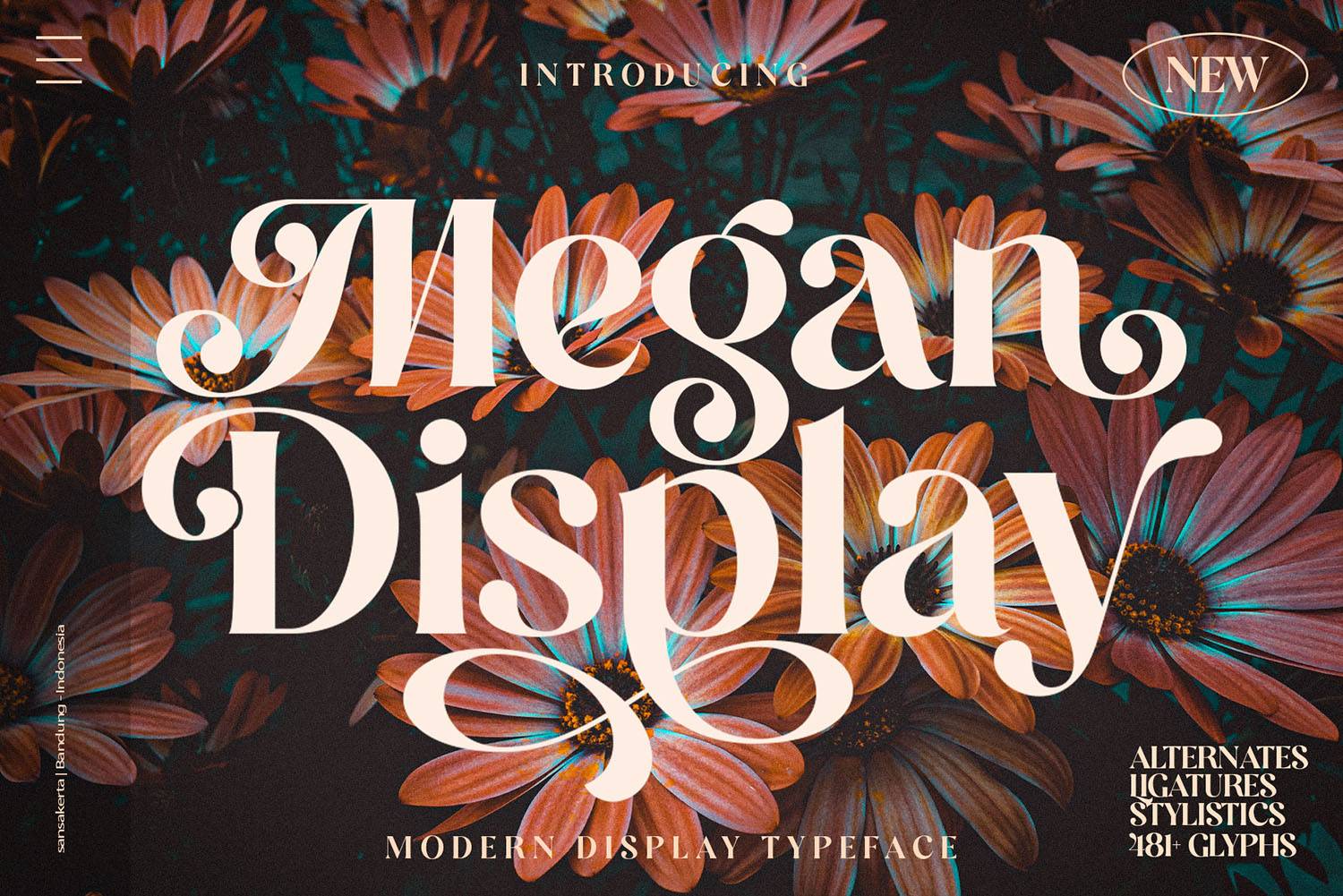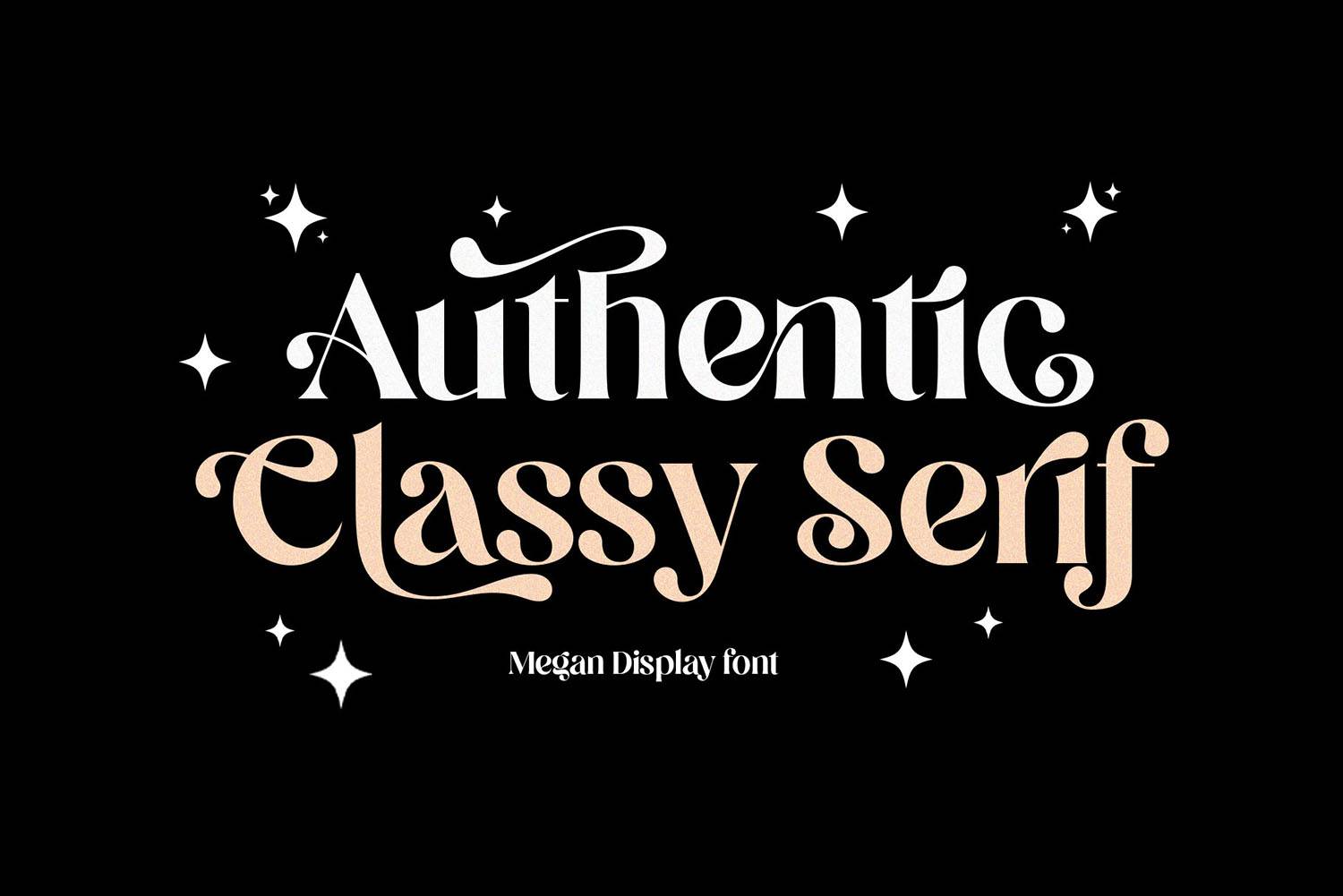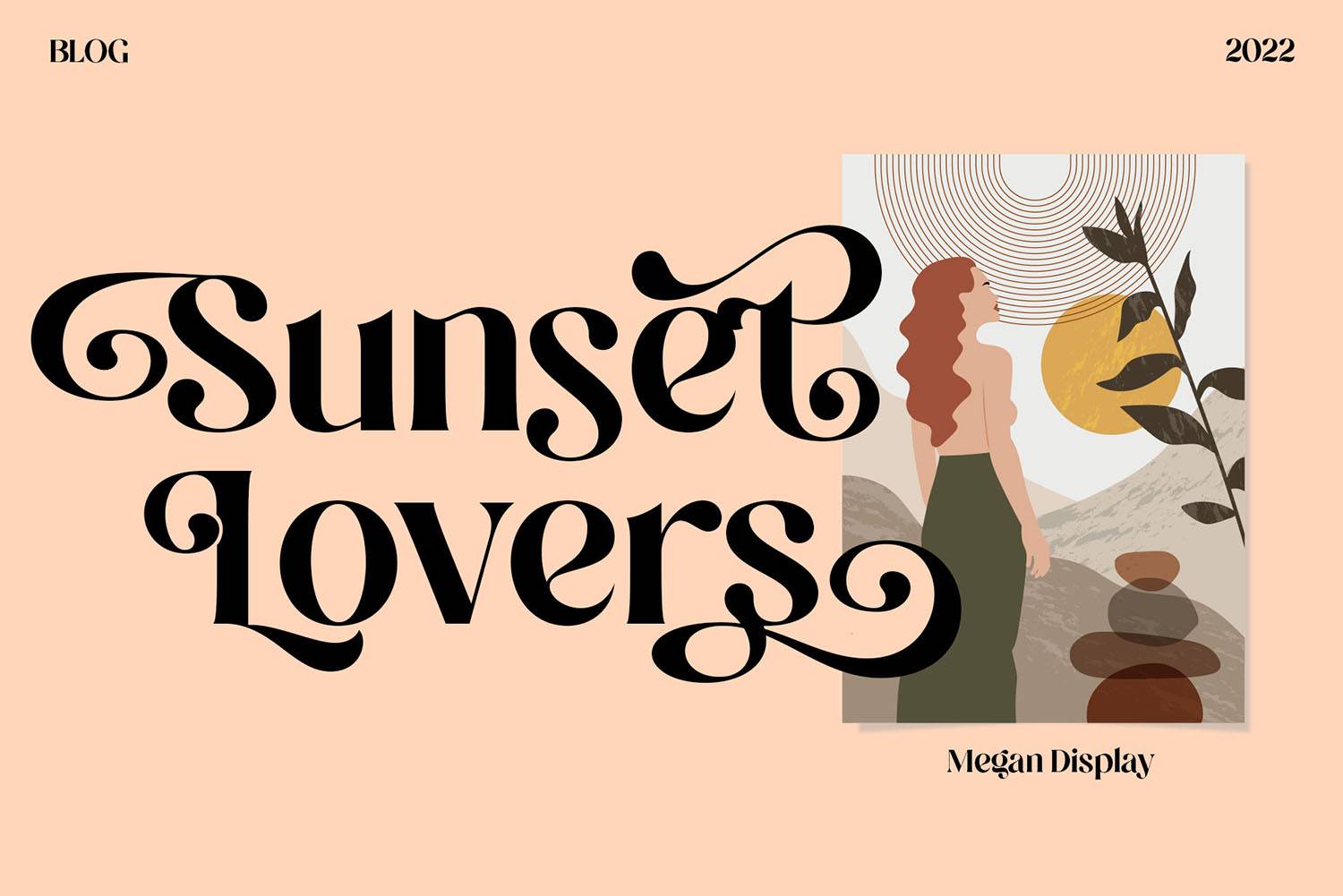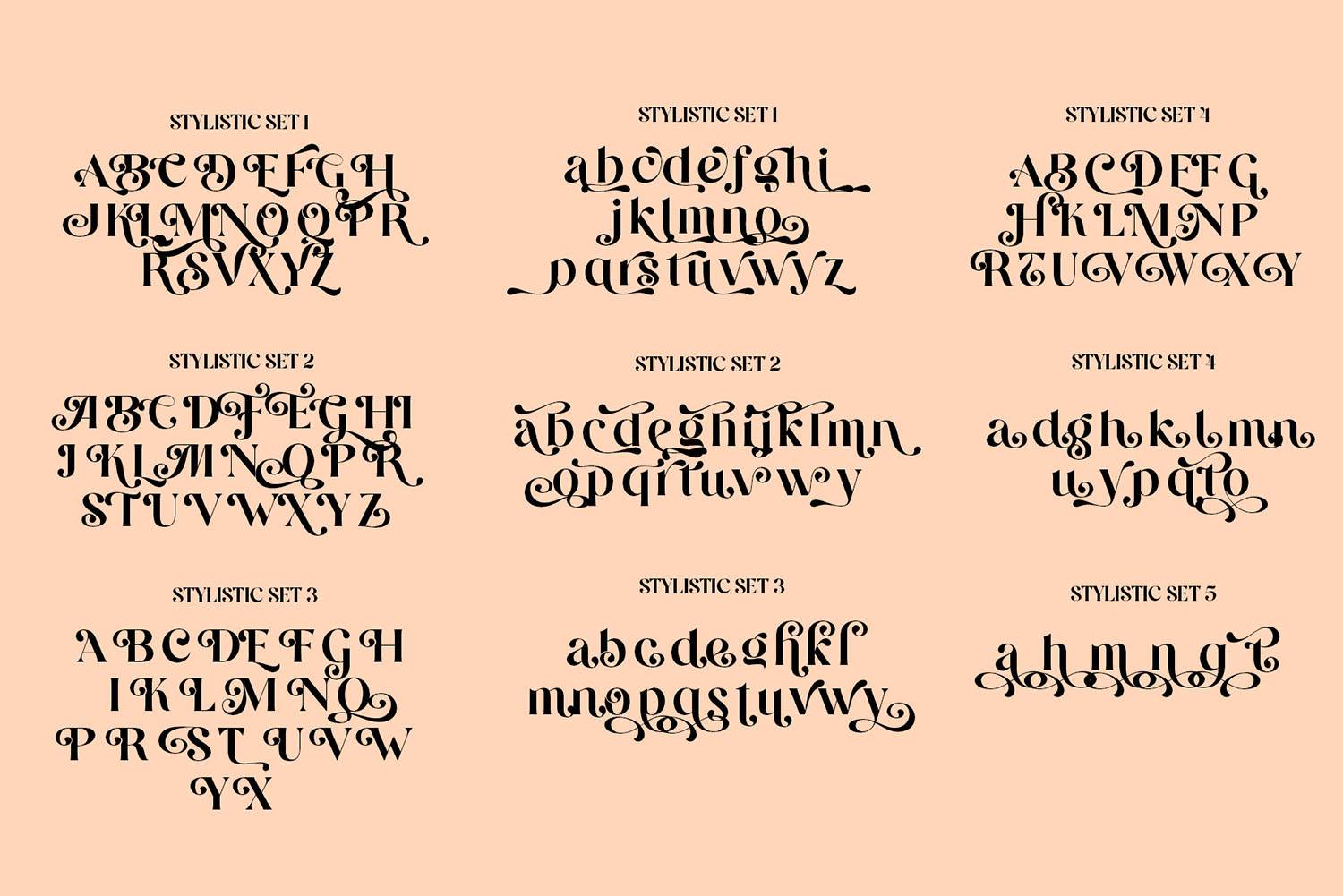
Megan Display is a striking serif font with a modern Didone style characterized by high contrast between thick and thin strokes, sharp edges, and elegant bracketed serifs. Its unique letterforms, such as the ornate lowercase "g" and distinctive "Q," give it a refined and sophisticated personality, making it ideal for luxury branding, editorial headlines, and fashion packaging where elegance and impact are essential. This font’s dramatic presence and stylish curves lend a timeless yet contemporary feel, perfect for designs that demand attention and class.
Megan Display Font